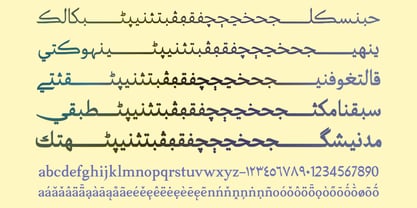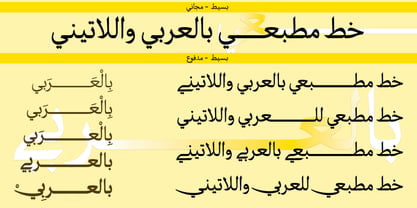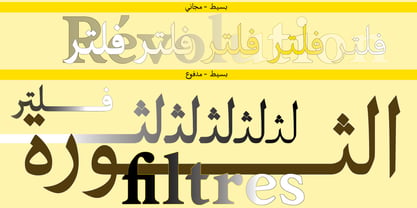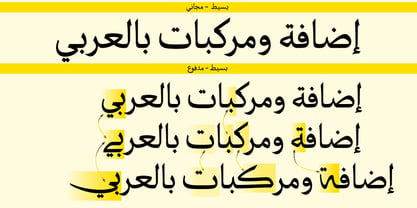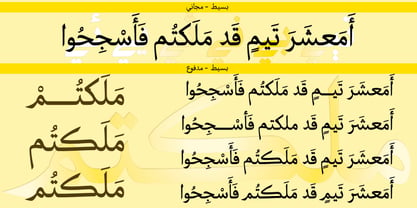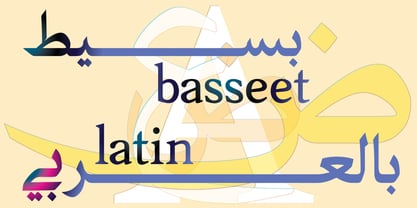
Basseet
La familia tipográfica Basseet fue diseñada por Ammar Bouras y publicada por GrafikarFonts. Basseet contiene 5 estilos y opciones de paquete familiar. Más información sobre esta familia
Basseet is an Arabic + Latin typeface by GrafikarFonts, rooted in the classical Naskh calligraphic tradition.
True to GrafikarFonts' approach, Basseet supports a wide range of languages that use the Arabic script — ensuring broad usability across diverse writing systems. The font makes extensive use of ligatures and contextual positioning to achieve visual harmony and an authentic handwritten flow. A rich set of stylistic alternates (ss01, ss02, and more) gives you the freedom to customize letterforms and add personality to your text.
Whether you're designing headlines or body text, Basseet balances legibility with aesthetic richness — maintaining clean proportions while offering typographic flexibility.
Typographic Features
subs sinf sups numr dnom frac rlig dlig locl liga ss01 ss02 calt — and more.
Ideal for: branding, editorial design, packaging, web, and publishing.
Classification: Naskh-inspired Arabic & Latin typeface
Glyph Coverage: Extended Arabic character set + Latin (supporting multiple Arabic-script languages) (+2500 Glyphs)
Styles: Thin, Light, Regular, SemiBold, Bold
Design Details
The font's calligraphic foundation is rooted in traditional Naskh script, renowned for its clarity and elegance. Through advanced contextual behavior, letterforms adapt dynamically based on their position and neighboring characters, ensuring a natural cursive flow throughout the text. The Latin glyphs have been carefully harmonized to visually complement the Arabic weight and rhythm, creating a cohesive bilingual reading experience. Additionally, the typeface offers broad multi-script support, covering Arabic, Persian, Urdu, and other languages written in the Arabic script — making it suitable for a wide range of linguistic contexts.
Recommended Usage
Basseet is ideally suited for headlines and display typography, editorial and publishing projects at appropriate body-text sizes, brand identity and logotype design, as well as both print and digital interfaces.